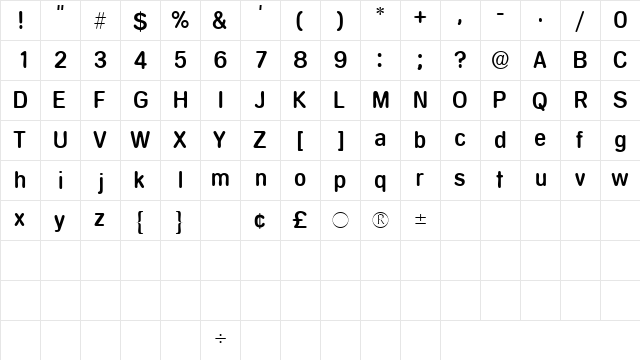
MentaSSK Regular
Design Context for MentaSSK Typeface
MentaSSK takes a measured approach to typography — its balanced proportions and neutral character make it a reliable workhorse for both digital and print work.